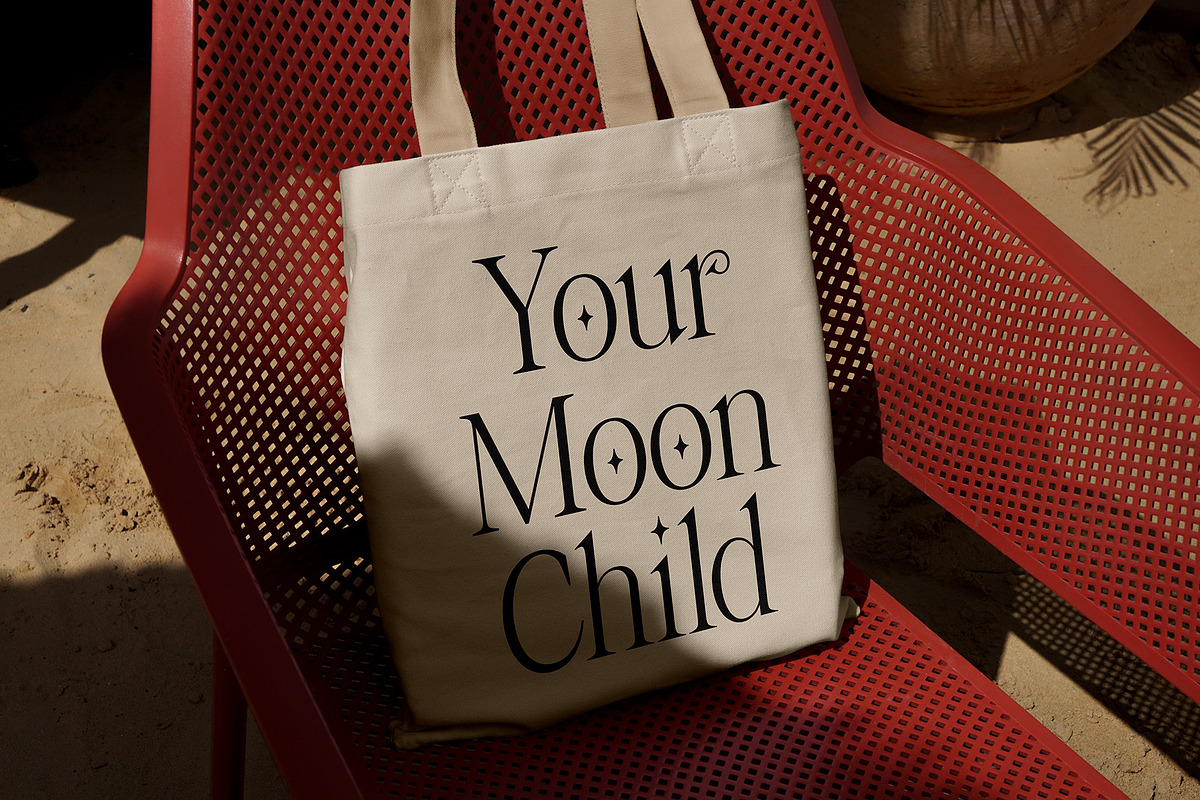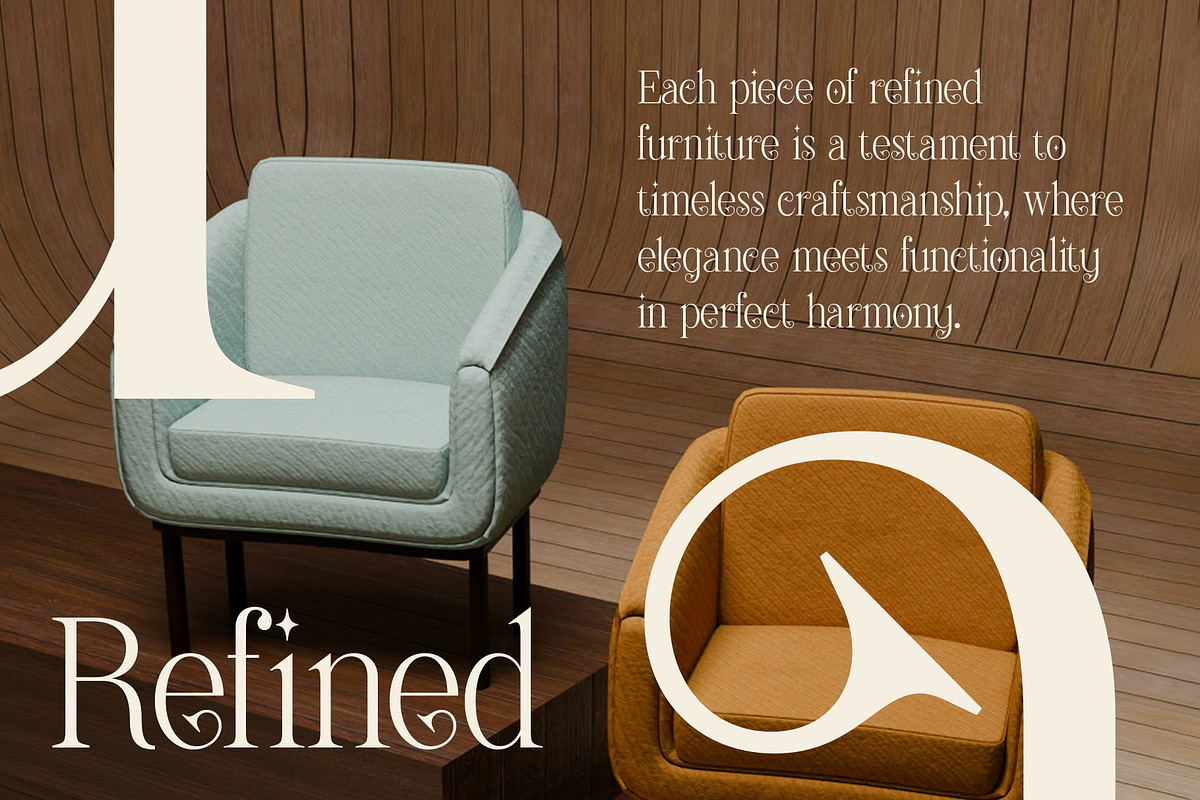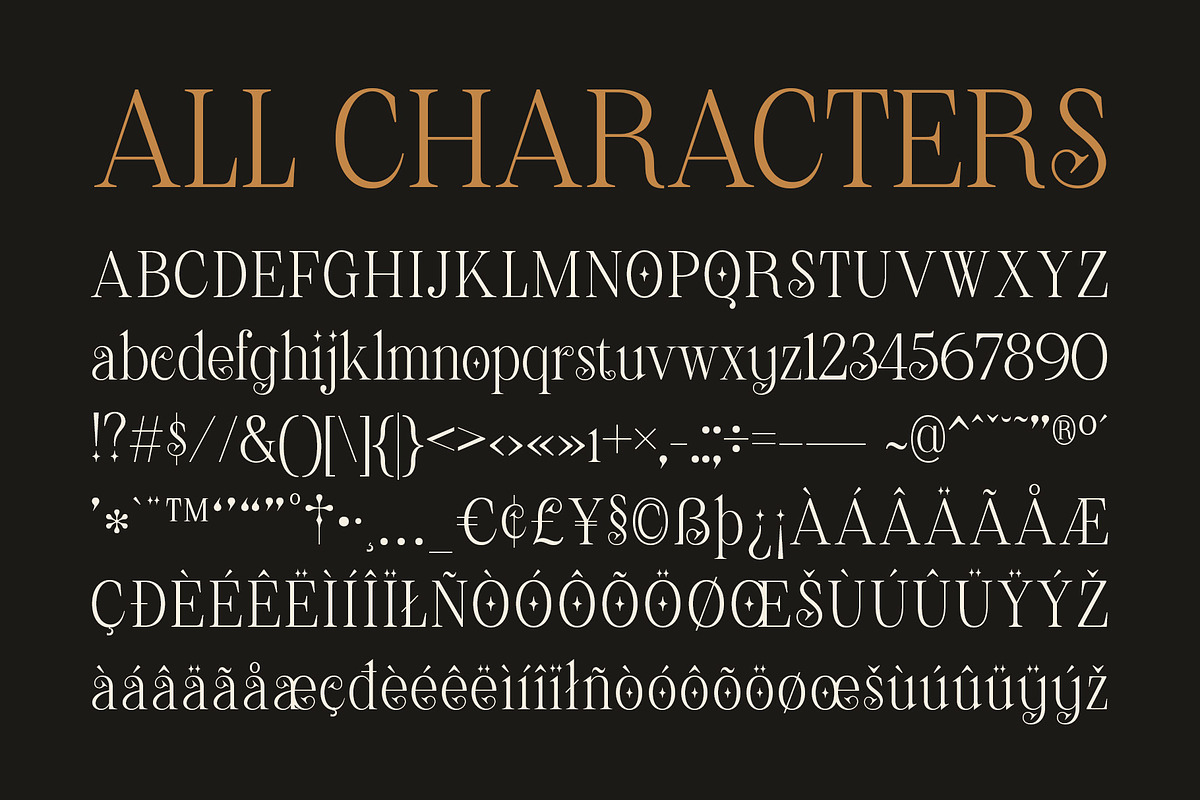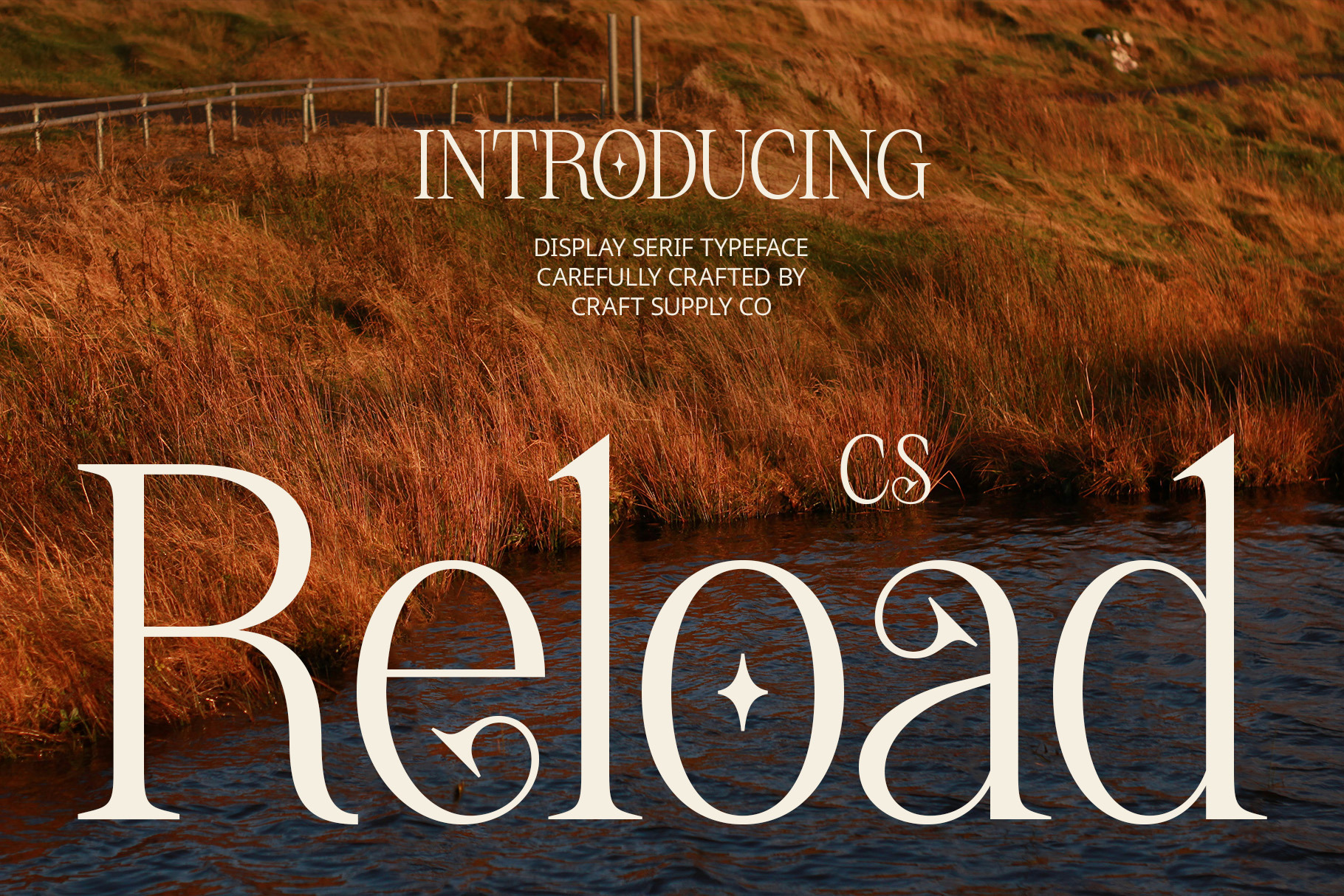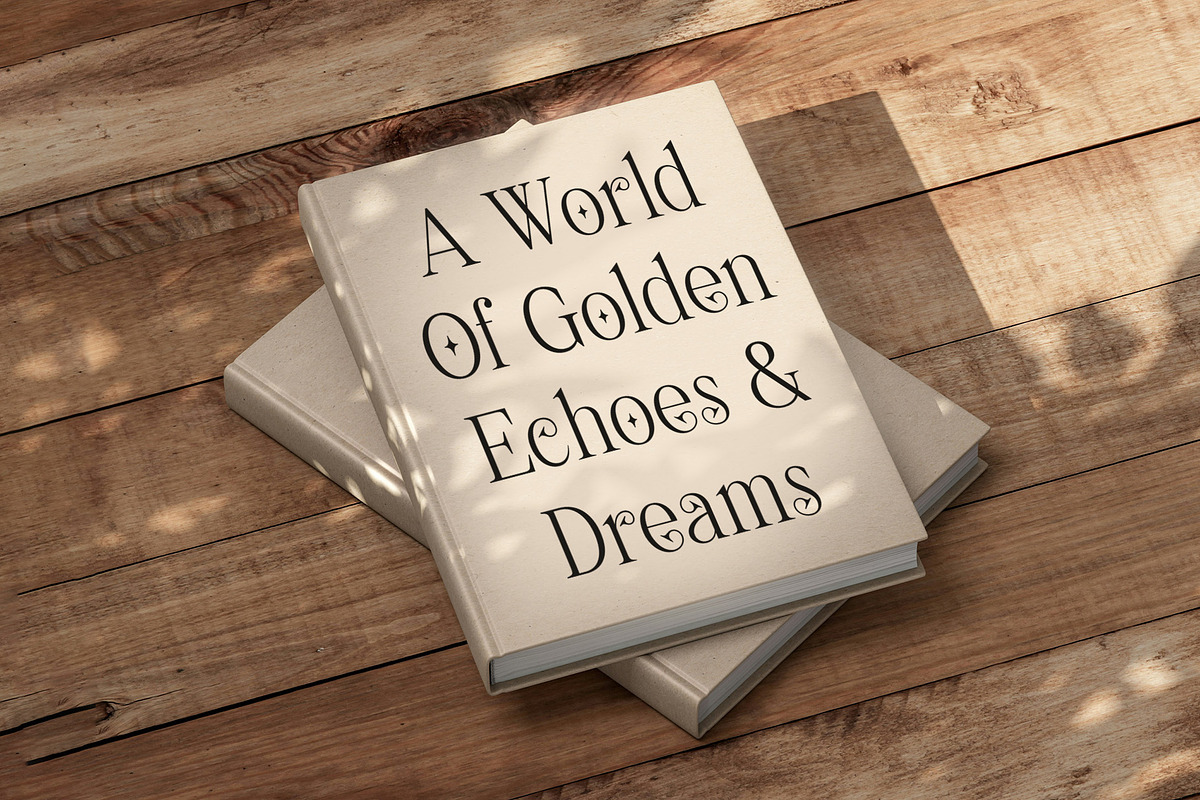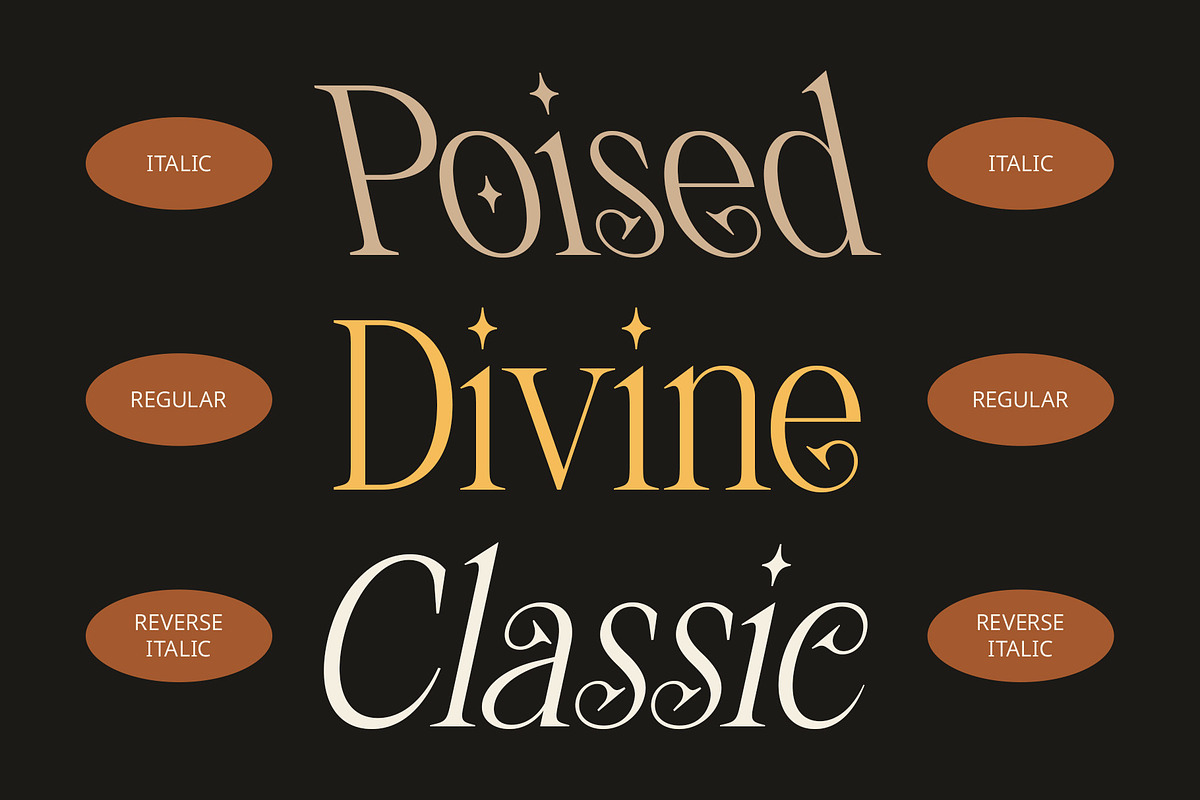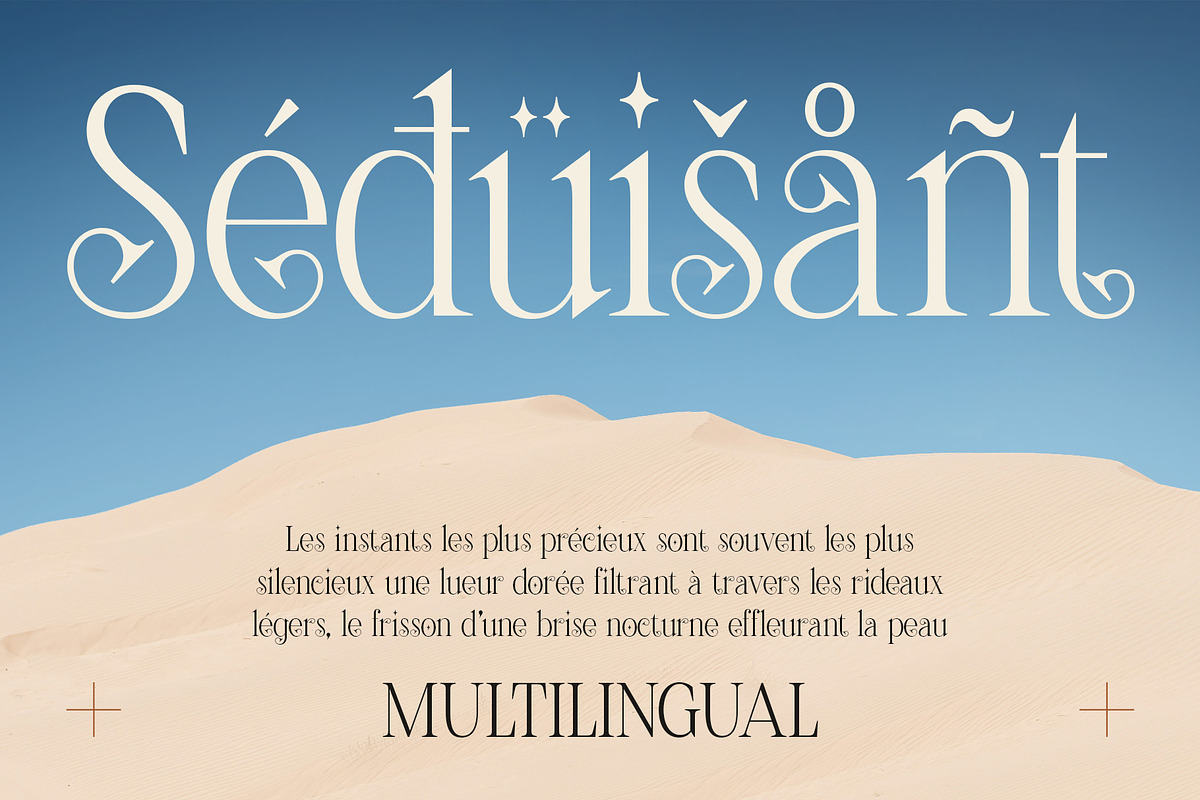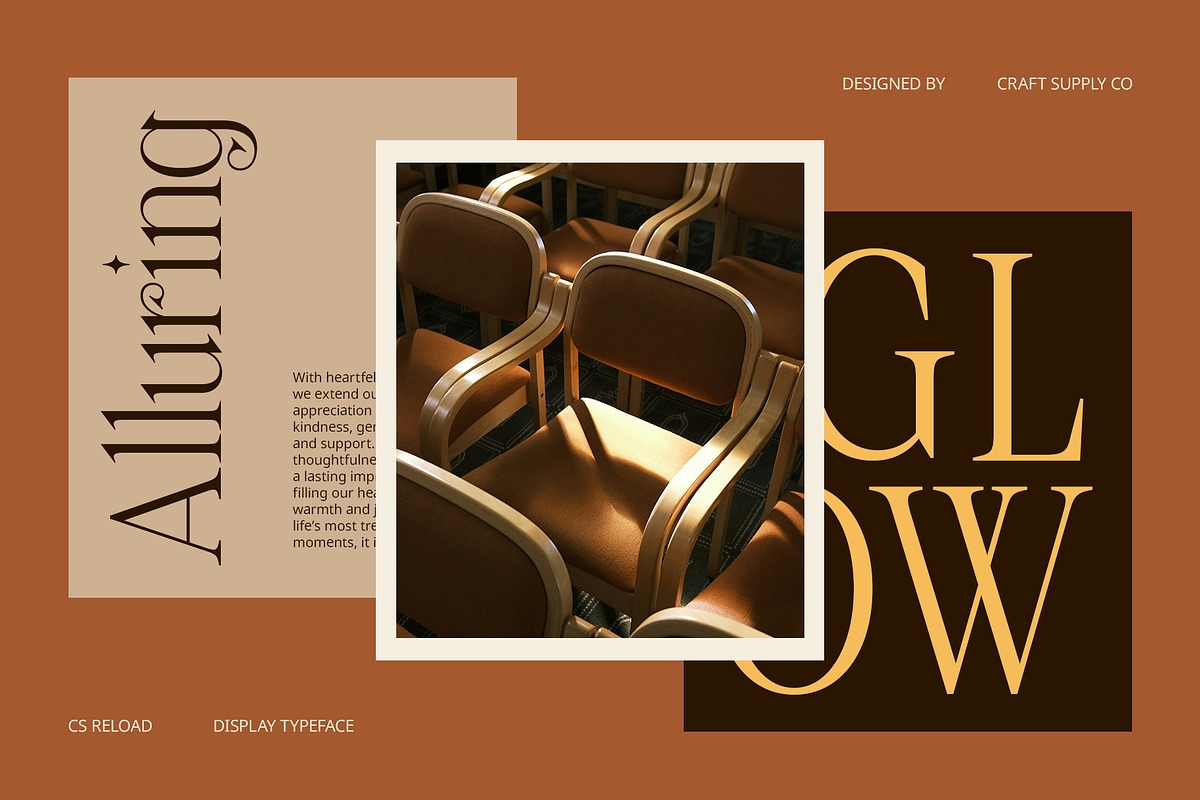
CS Reload – Aesthetic Font
CS Reload – Aesthetic Font: Where Elegance Meets Modern Simplicity
A Sophisticated Modern Display Serif CS Reload is a modern display serif font that embodies sleek minimalism and refined aesthetics. With its clean structure and elegant letterforms, it offers a sophisticated yet contemporary presence, making it ideal for designs that require a high-end and polished look.
Subtle Curves for a Refined Touch One of CS Reload’s standout features is its delicate curves on select letters, which introduce a soft yet striking contrast to its structured form. These subtle yet intentional details add an extra layer of sophistication and uniqueness, ensuring a harmonious balance between modern simplicity and artistic elegance. Its well-crafted strokes make it a versatile font that blends classic beauty with contemporary trends.
Perfect for Luxury and Editorial Design CS Reload is meticulously crafted for luxury branding, high-fashion editorials, premium packaging, and upscale product designs. Its refined letterforms and elegant contrast make it an excellent choice for magazine headlines, logo designs, and marketing materials.
Versatile Yet Distinctive Beyond luxury applications, CS Reload adapts effortlessly to wedding invitations, lifestyle branding, beauty products, and creative typography projects. Its graceful yet bold character makes it a perfect fit for designers who seek a balance between modern sophistication and classic charm.
- CS Reload Regular
- CS Reload Italic
- CS Reload Reverse Italic